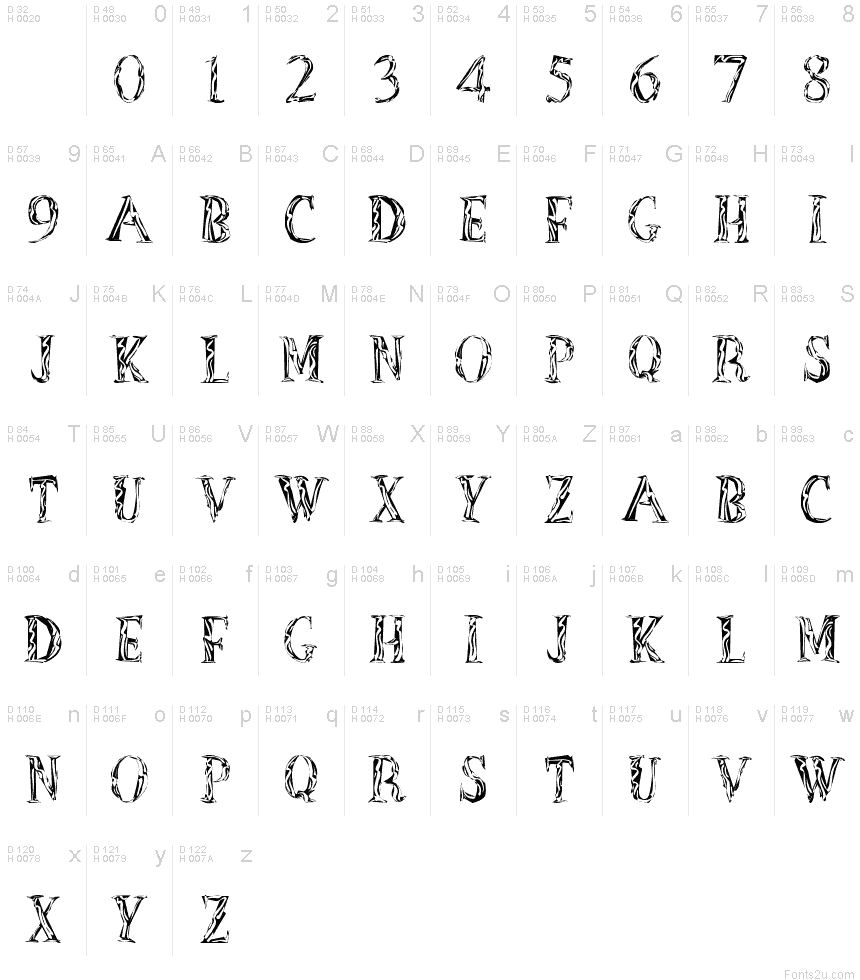
OutOfAfrica
Out of Africa font by Lime is a free eroded decorative typeface that looks like it’s been carved out of rough wood and painted in bold, inky stripes. The letterforms twist with organic, almost animal-hide patterns, leaving bright gaps of white that feel sun-bleached and weathered. It has an immediate wild, exploratory energy-loud, textural, and impossible to ignore.
Using Out of Africa, your titles practically roar off the page, making it a natural fit for adventure posters, safari or jungle-themed party flyers, game titles, movie branding, travel brochures, and bold book covers. This free font works best when used large and sparingly, paired with a simple, unobtrusive sans serif for supporting text so its rugged details can breathe and stay legible.